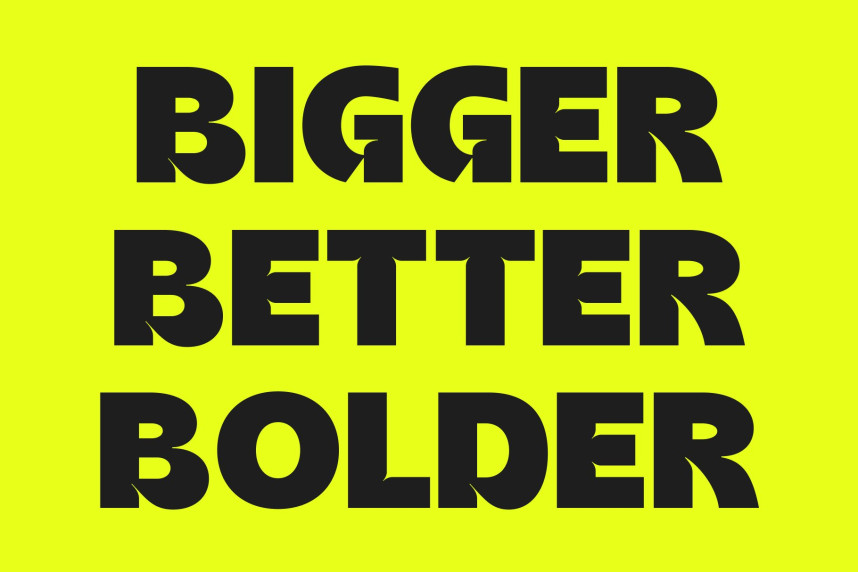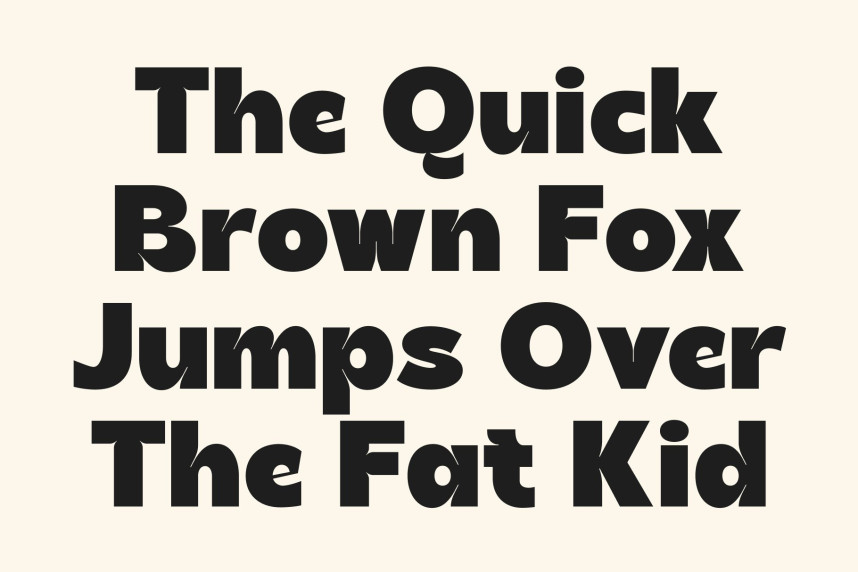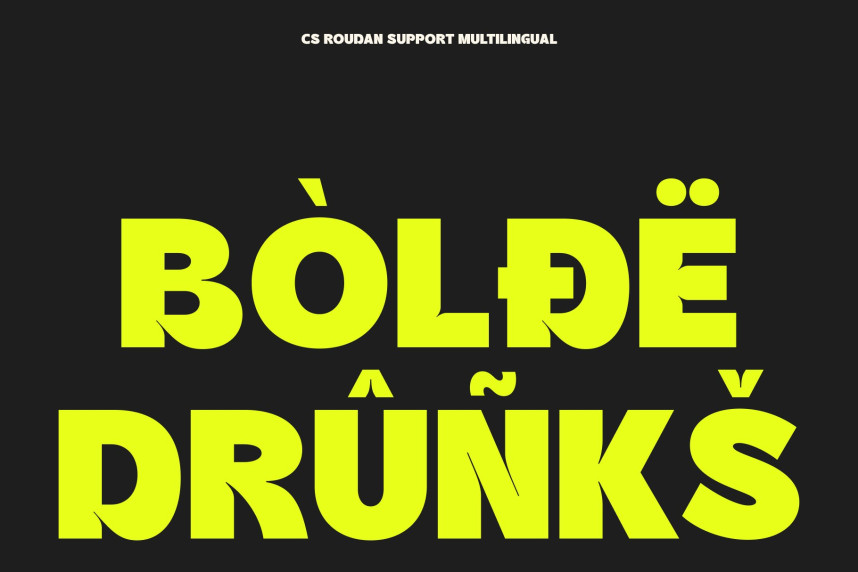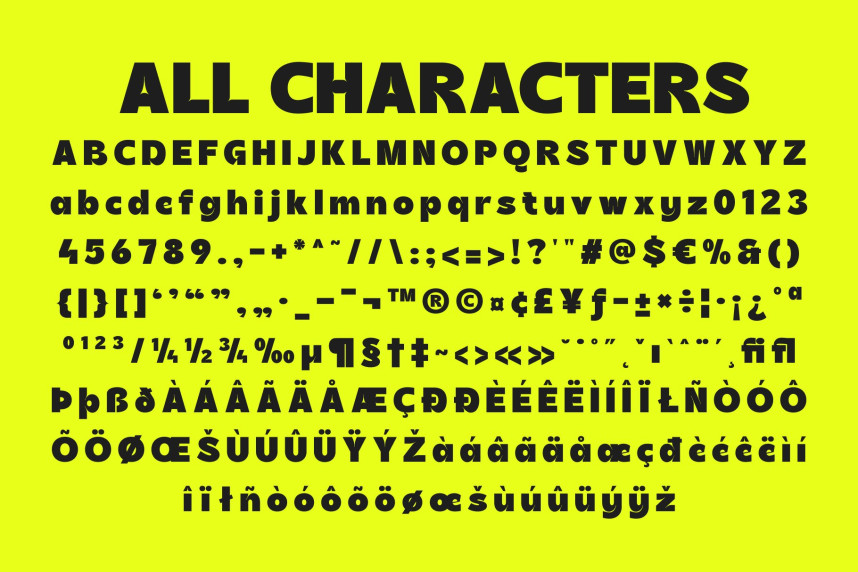
CS Roudan Font
CS Roudan Font – Bold Sans Serif Font: Where Industrial Precision Meets Playful Futurism
Extra Bold Weight with Powerful Geometry
This is a bold sans serif font built to make a lasting impression. Featuring an extra bold weight, clean geometric construction, and wide counters, it delivers exceptional visual strength while maintaining excellent readability. Its balanced proportions create typography that feels confident, modern, and highly impactful across a variety of display applications.